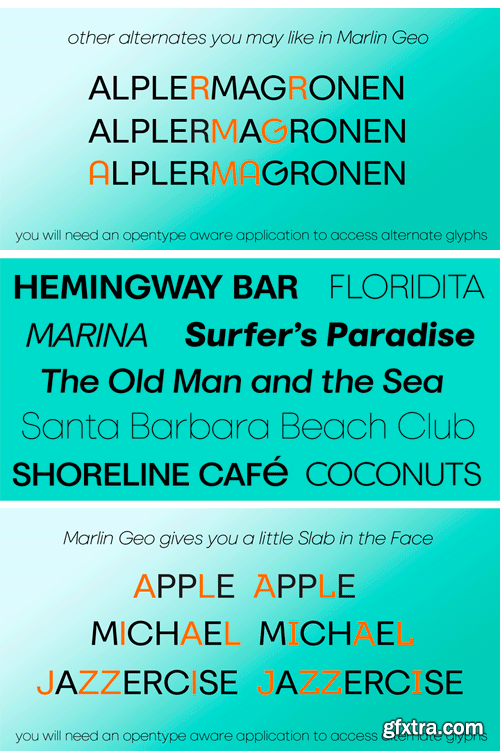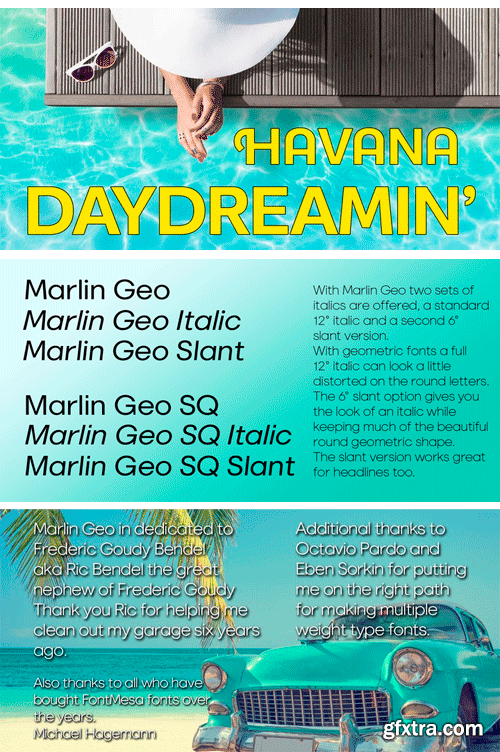
FontMesa is pleased to introduce our latest sans serif type font design Marlin Geo. Ten years ago we set out to make you a good clean multiple weight font family, with each new release our goal was to improve and refine our work making each font family better than the next.
It's been a long journey in creating for you the customer the best product possible. Marlin Geo is FontMesa's best work yet, it's spot on perfect, painstaking effort has gone into making sure the letter shapes have been crafted simple and clean the way they should be. Marlin Geo is your classic everyday use sans serif that's packed with alternate letters that I'm sure you're going to enjoy. Marlin Geo comes with two sets of italics, the standard 12° italic and a 6° slant version that's perfect for headlines and signage where you may want the look of an italic with half the slant. Marlin Geo offers two versions, the regular which has round dots, periods and accents and the SQ version which includes square dots, periods and accents. Both versions include the same set of stylistic alternates which you will need an opentype aware application such as Adobe Illustrator to access the alternate glyphs in Marlin Geo. Within Marlin Geo is one alternate letter that I'm pretty fond of, you'll notice it right away as a slightly rotated G, I'm sure you'll find the perfect project to use it on. You'll also find alternates in Marlin Geo that allow you to go without descenders on the g, j, q, y. Right about now you're probably wondering what the sets of three lines are for in Marlin Geo? They're wings, hard or rounded, simply type out a name or word then place a wing on each side or use the center wing with each side wing and layer a word over the top. You'll also find a Unicase E in Marlin Geo, when creating the uppercase Schwa glyph I thought, well why not flip it over and add it as a Unicase letter which perfectly compliments the geometric style of this font? What about the numbers in Marlin Geo? Does it have oldstyle and tabular figures? don't worry about it we've got you covered. In saltwater fishing the Marlin fish is considered the King of the ocean and a royal symbol in some cultures. So put on your flip flops then explore and discover the possibilities the all new Marlin font family has to offer.